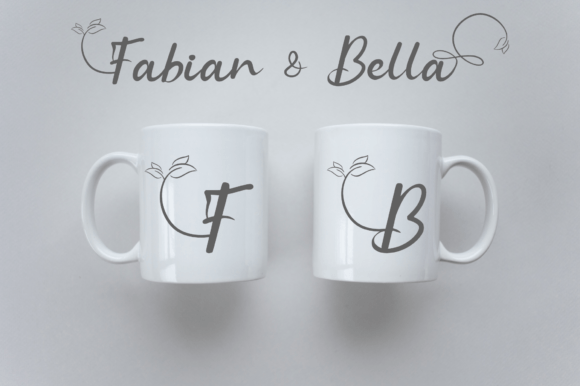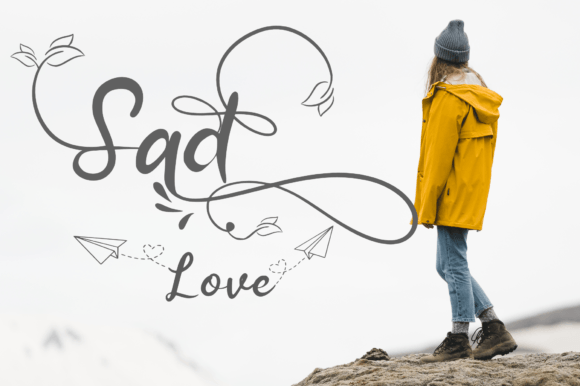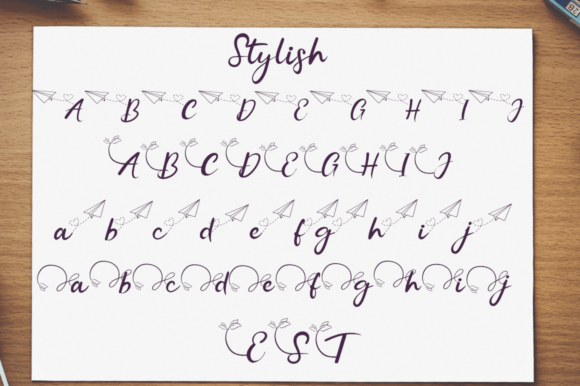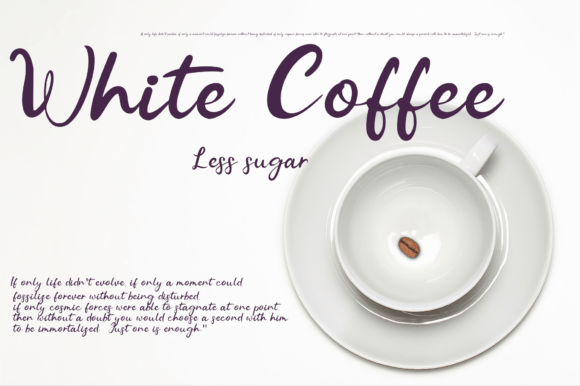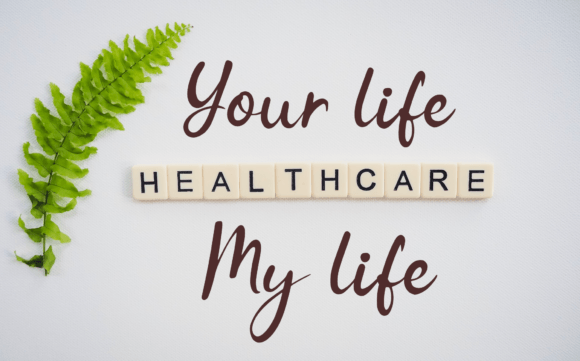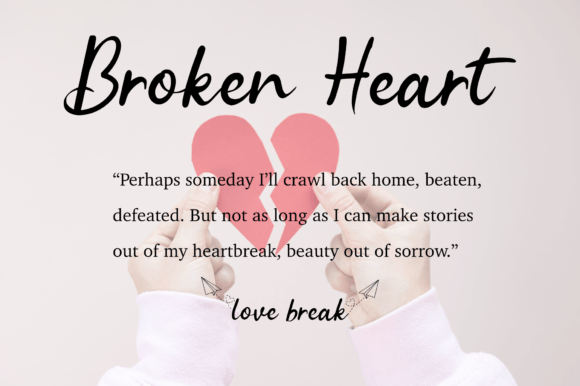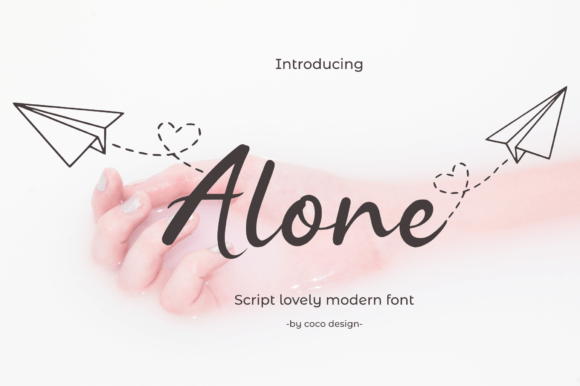
Introducing Alone Font: A Lovely Modern Script Font for Creative Projects
Are you a designer or crafter looking for a beautiful and versatile font to elevate your creative projects? Look no further than Alone Font, a stunning modern script font designed by handwriting in a very natural style. In this article, we’ll dive into the features and benefits of Alone Font, and explore how it can be used to add a touch of elegance and sophistication to a wide range of projects.
What is Alone Font?
Alone Font is a carefully crafted script font that boasts a unique and charming personality. Designed to mimic the fluidity and expressiveness of handwriting, this font is perfect for adding a personal touch to any design project. With its modern and sleek aesthetic, Alone Font is ideal for designers and crafters who want to create visually stunning and professional-looking designs.
Key Features of Alone Font
- Natural Handwritten Style: Alone Font is designed to resemble natural handwriting, giving it a warm and inviting feel.
- Modern and Sleek Aesthetic: This font boasts a modern and sleek design, making it perfect for a wide range of creative projects.
- Highly Versatile: Alone Font can be used for various purposes, including headings, logos, wedding invitations, t-shirts, letterhead, signage, labels, news, posters, badges, and more.
- Easily Readable: Despite its script nature, Alone Font is highly legible and easy to read, making it perfect for body text and headlines.
Use Cases for Alone Font
Alone Font is an incredibly versatile font that can be used for a wide range of creative projects. Here are some ideas to get you started:
- Wedding Invitations: Add a touch of romance and elegance to your wedding invitations with Alone Font.
- Logos and Branding: Use Alone Font to create a unique and memorable logo for your business or brand.
- T-Shirts and Apparel: Create stunning and eye-catching designs for t-shirts, hoodies, and other apparel with Alone Font.
- Posters and Flyers: Use Alone Font to create visually stunning posters and flyers for events, promotions, and more.
- Signage and Labels: Add a professional touch to your signage and labels with Alone Font.
Benefits of Using Alone Font
So why choose Alone Font for your creative projects? Here are just a few benefits of using this amazing font:
- Unique and Eye-Catching: Alone Font is a one-of-a-kind font that will help your designs stand out from the crowd.
- Elegant and Sophisticated: This font adds a touch of elegance and sophistication to any design project.
- Highly Versatile: Alone Font can be used for a wide range of creative projects, from wedding invitations to logos and branding.
- Easily Customizable: Alone Font can be easily customized to fit your design needs, including adjusting font sizes, colors, and more.
In conclusion, Alone Font is a stunning modern script font that is perfect for designers and crafters looking to add a touch of elegance and sophistication to their creative projects. With its natural handwritten style, modern aesthetic, and high versatility, Alone Font is an excellent choice for a wide range of design projects. Whether you’re creating wedding invitations, logos, t-shirts, or posters, Alone Font is sure to impress. So why wait? Download Alone Font today and start creating stunning designs that will leave a lasting impression!